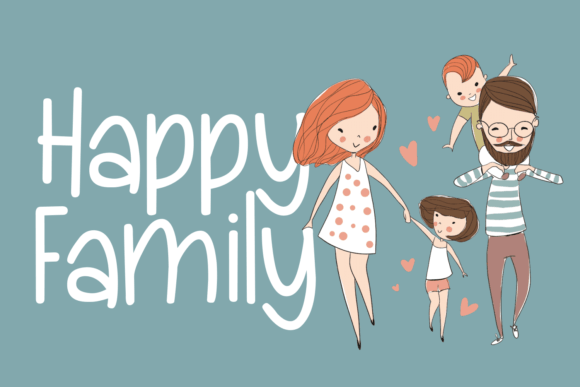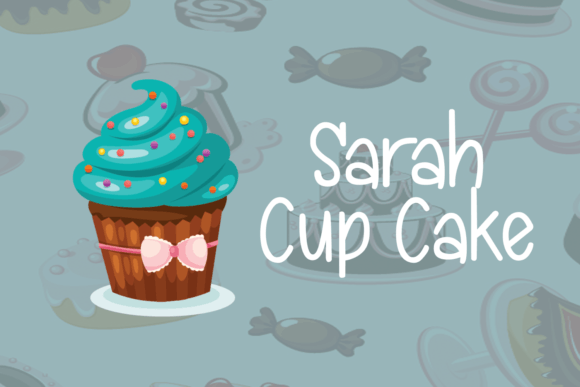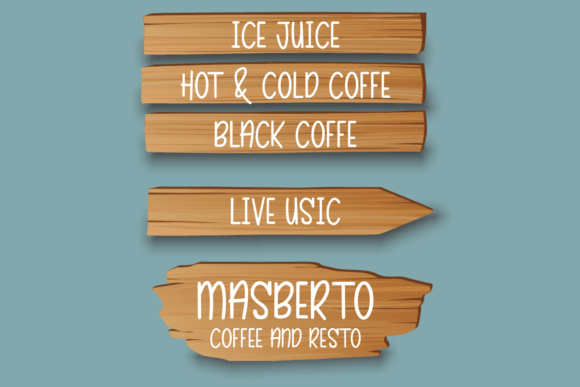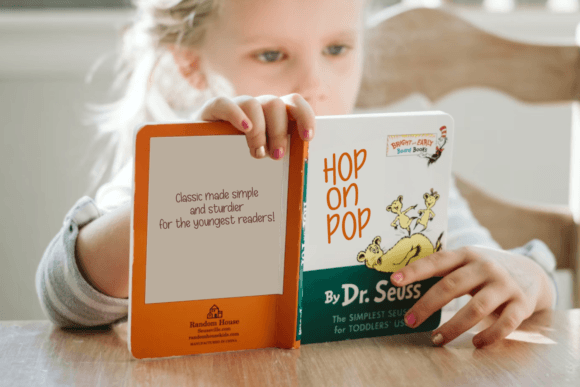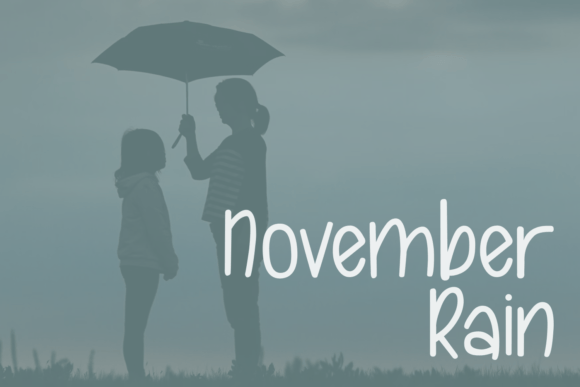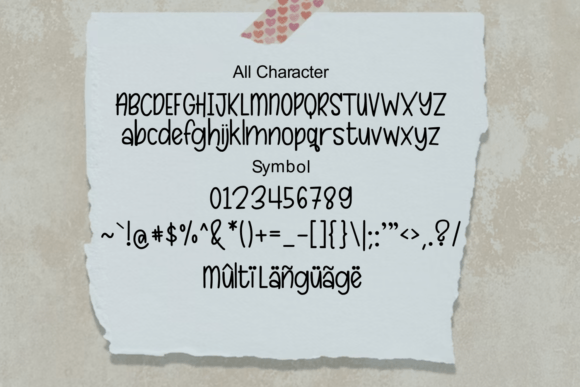
Introduction to Quethy Font
Have you ever stared at a blank canvas, searching for the perfect font to bring your creative project to life? The struggle is real, but what if I told you there’s a secret font that’s about to become your new best friend? Introducing the Quethy Font, a playful and elegant handwritten font that’s sure to make your designs stand out.
Quethy Font is more than just a pretty face – it’s a valuable resource for designers looking to add a personal touch to their work. Handwritten with a simple pen, this font exudes a sense of warmth and character that’s perfect for posters, titles, greeting cards, packaging, invitations, and more. And the best part? It’s available for a free download, making it an accessible design resource for creatives of all levels.
With its high-quality design and transparent background, Quethy Font is the perfect addition to any design project. Whether you’re working on a personal or professional project, this font is sure to bring a touch of elegance and sophistication to your work.
Key Features of Quethy Font
- Features a unique and modern design with a scalable size, ideal for use in various resolutions (up to 300 DPI).
- Quethy Font is designed to be highly legible, making it perfect for use in digital and print media.
- Comes with a comprehensive character set, including Latin, Cyrillic, and Greek alphabets, as well as various symbols and accents.
Honest Review: Quethy Font
I recently stumbled upon the Quethy Font and was excited to give it a try in my current creative project. As a designer, I’m always on the lookout for high-quality design resources that can elevate my work.
The Quethy Font is a free download, which immediately caught my attention. I love discovering new fonts that I can use in my designs without breaking the bank. Upon closer inspection, I was impressed by the font’s modern and sleek design. It features a transparent background, which makes it perfect for overlaying text on images or using it as a standalone element in my design.
- Modern and sleek design
- Limited character set (not ideal for long-form text)
- No bold or italic font styles available
Overall, I’m impressed with the Quethy Font’s design and versatility. While it has some limitations, it’s a great addition to any designer’s toolkit. I’d definitely recommend it for small-scale projects or as a complementary font to use in conjunction with other fonts.
Tips for Getting the Most Out of Quethy Font
For the best results, use Quethy Font with a transparent background to create a clean and minimalist design. Experiment with different font sizes and colors to add depth and visual interest to your project.
Common Use Cases for Quethy Font
Quethy Font is ideal for use in creative projects such as logos, business cards, and social media graphics. Its high-quality design and transparent background make it a great resource for designers.